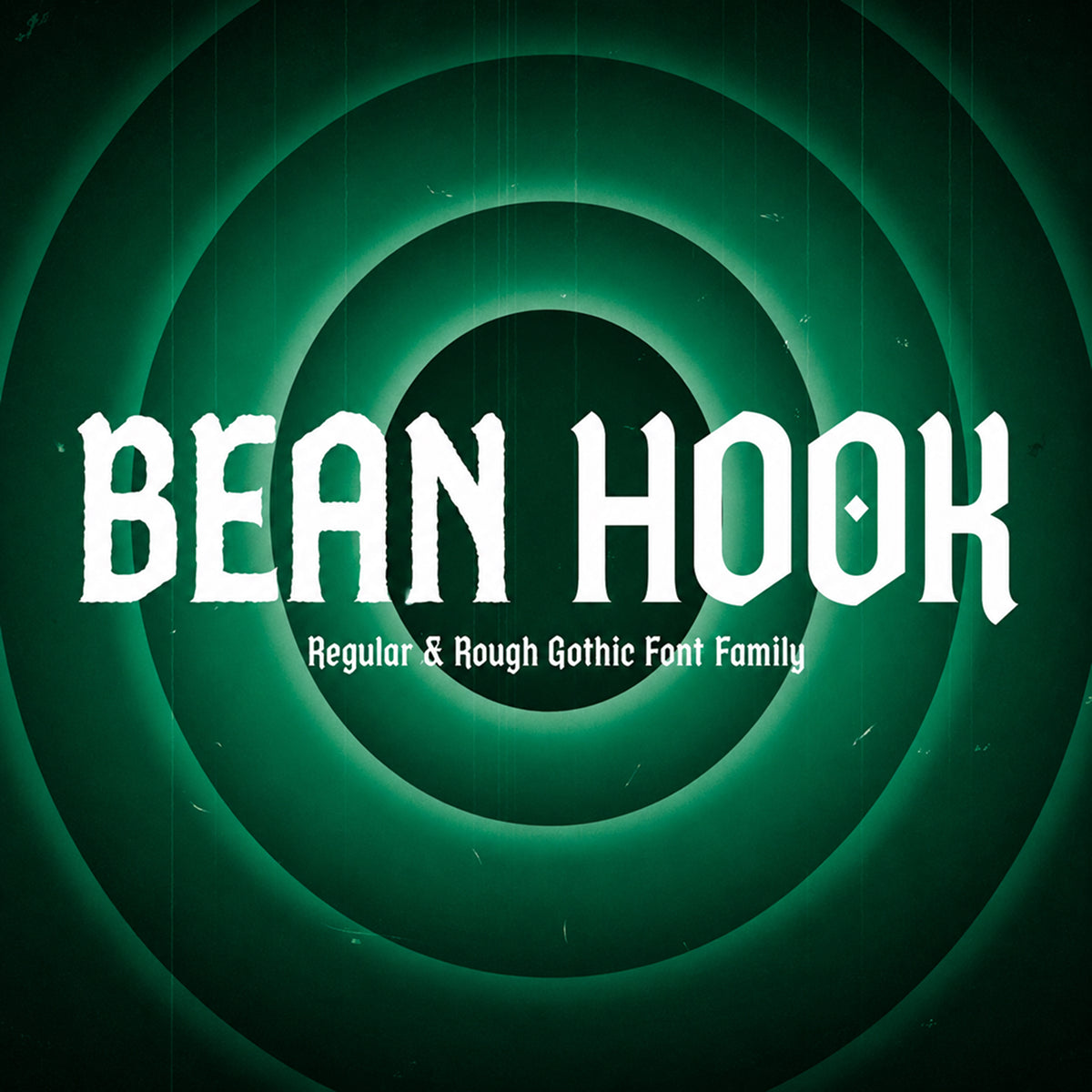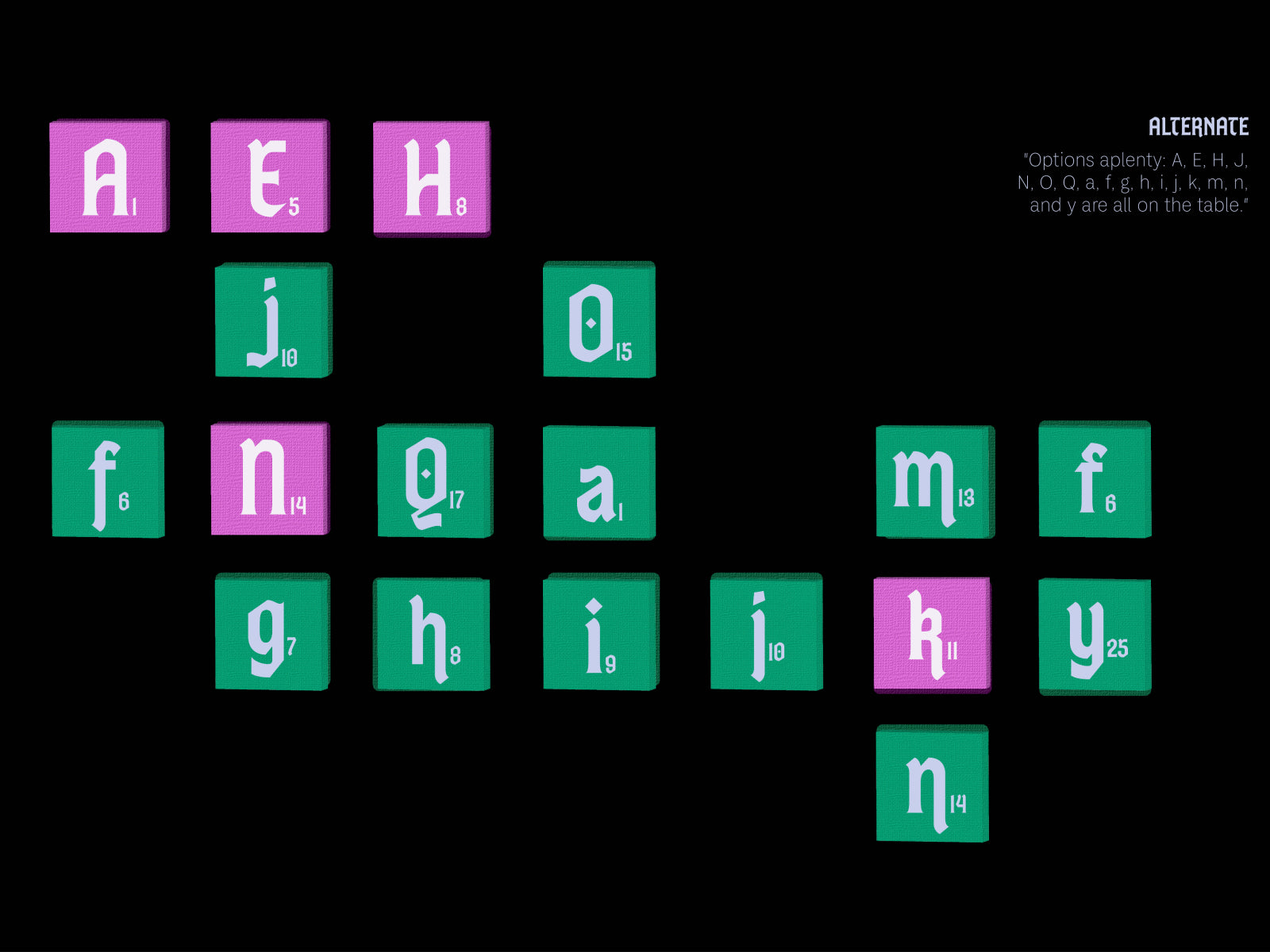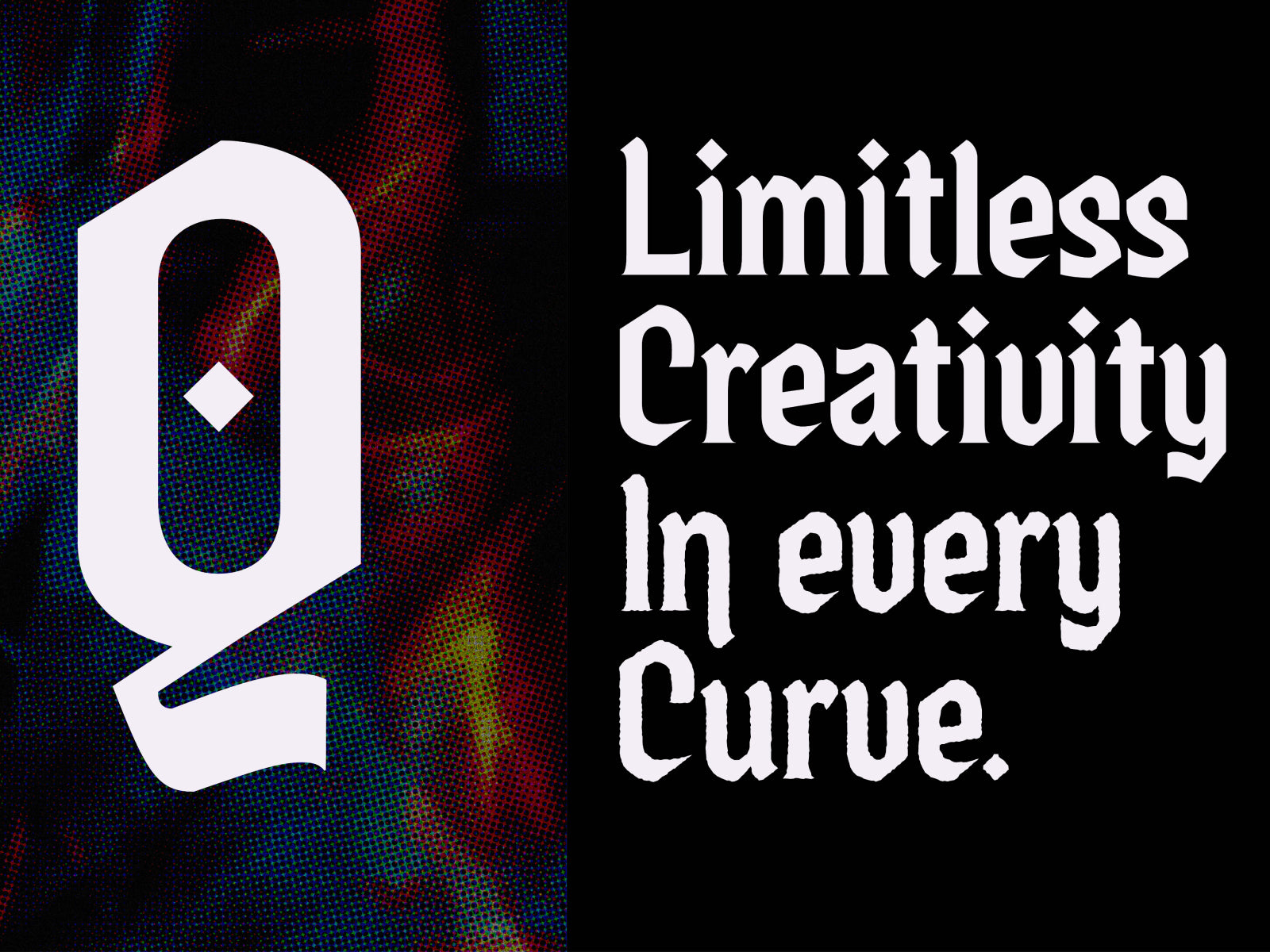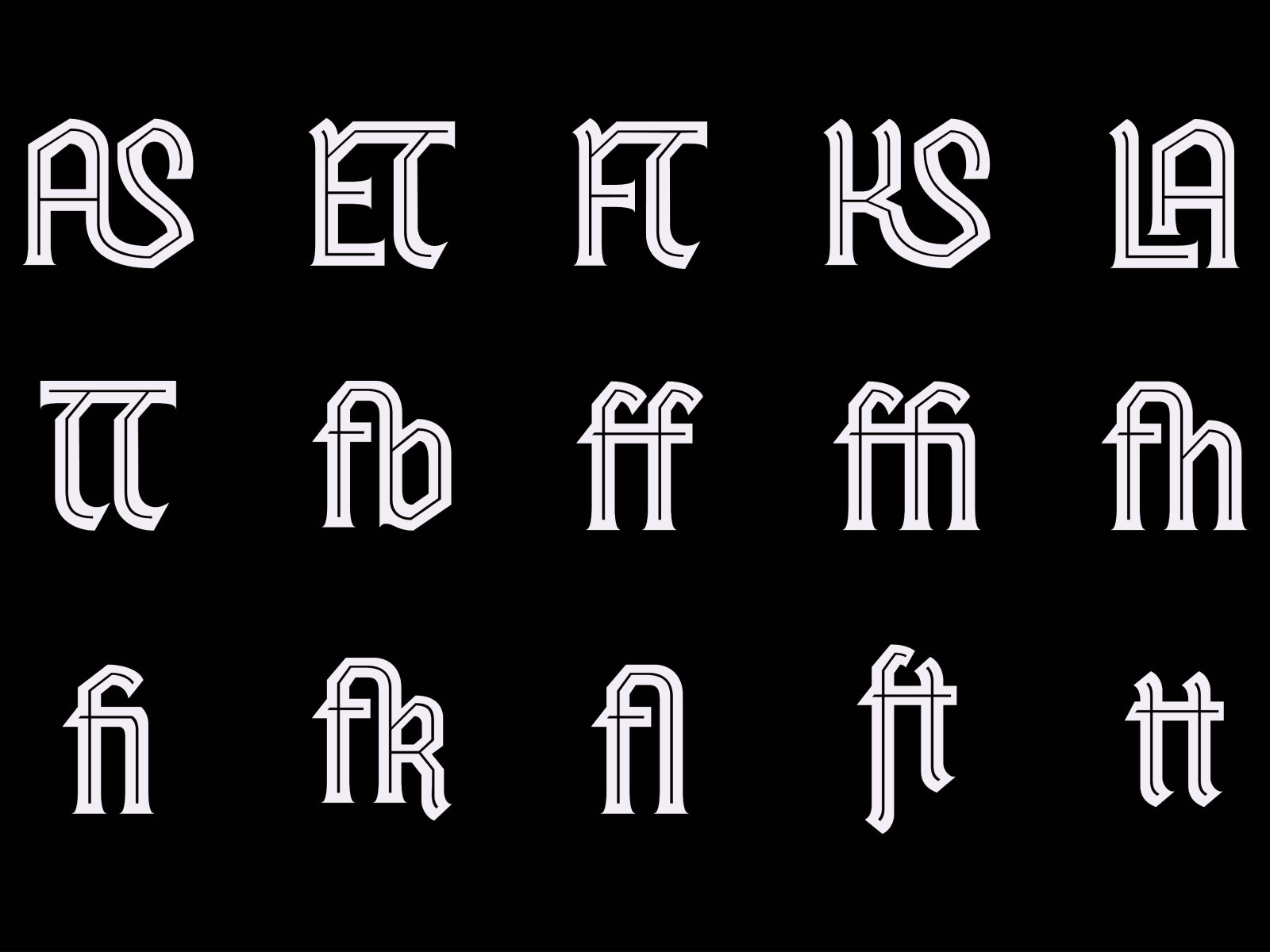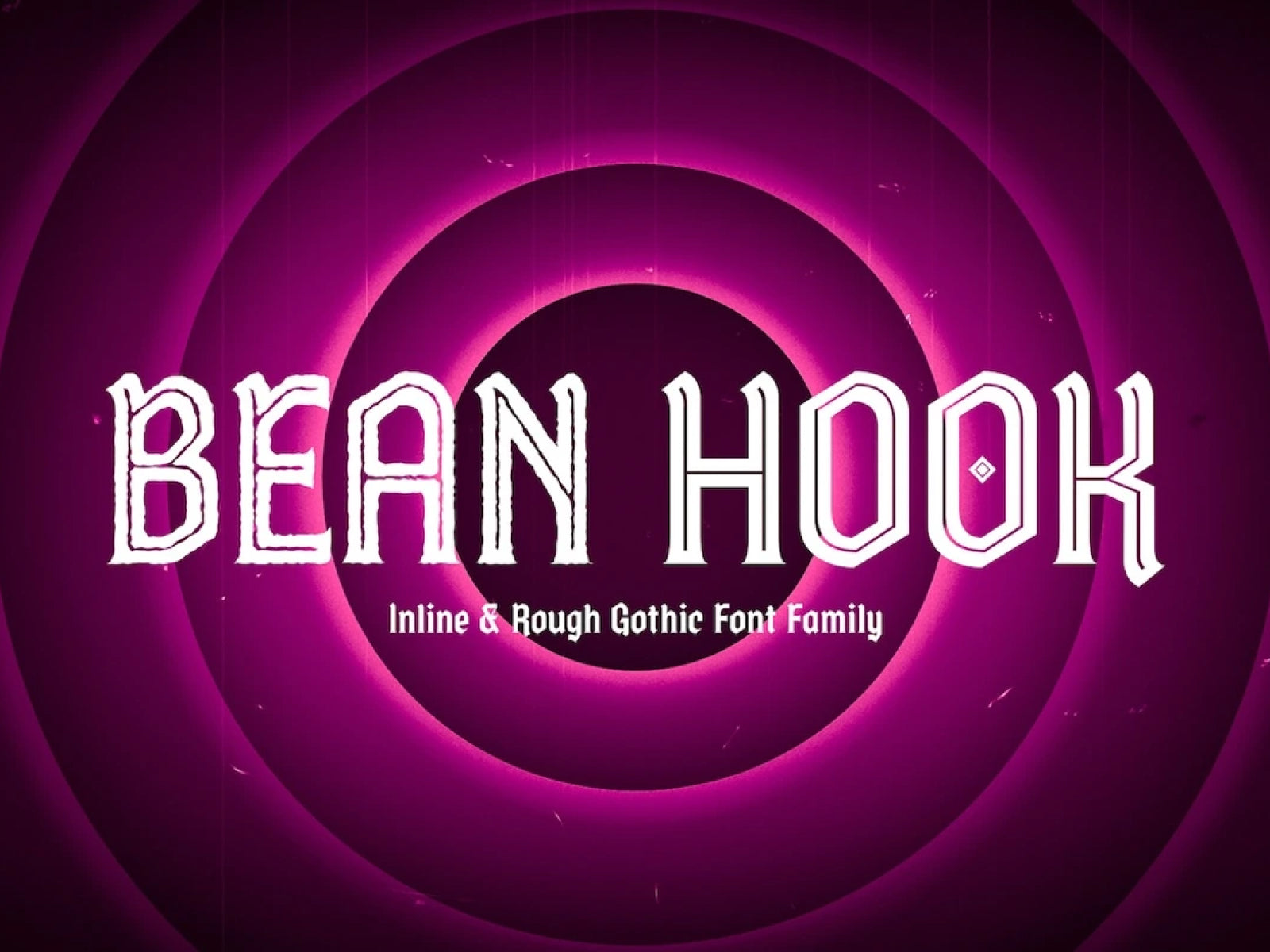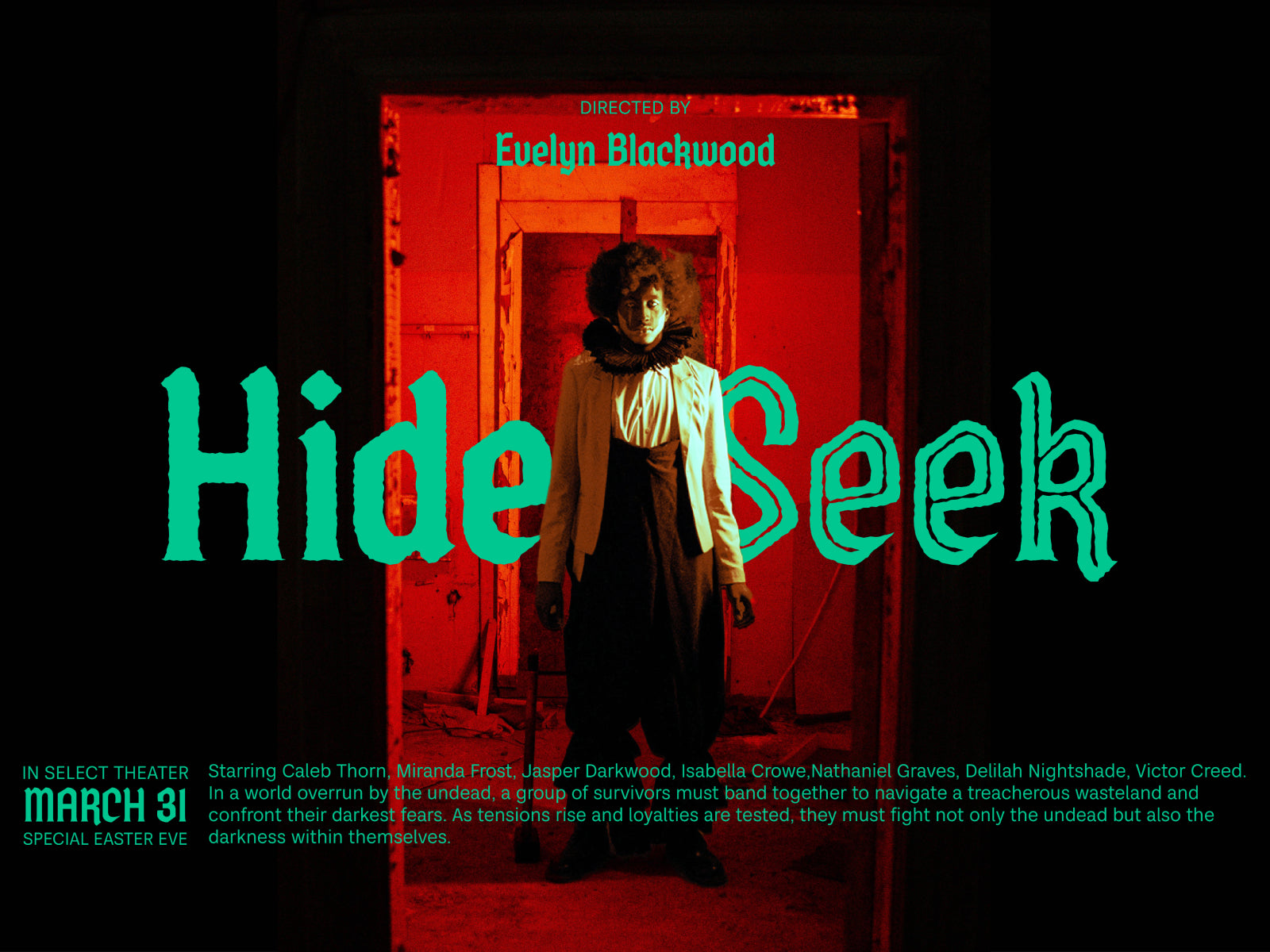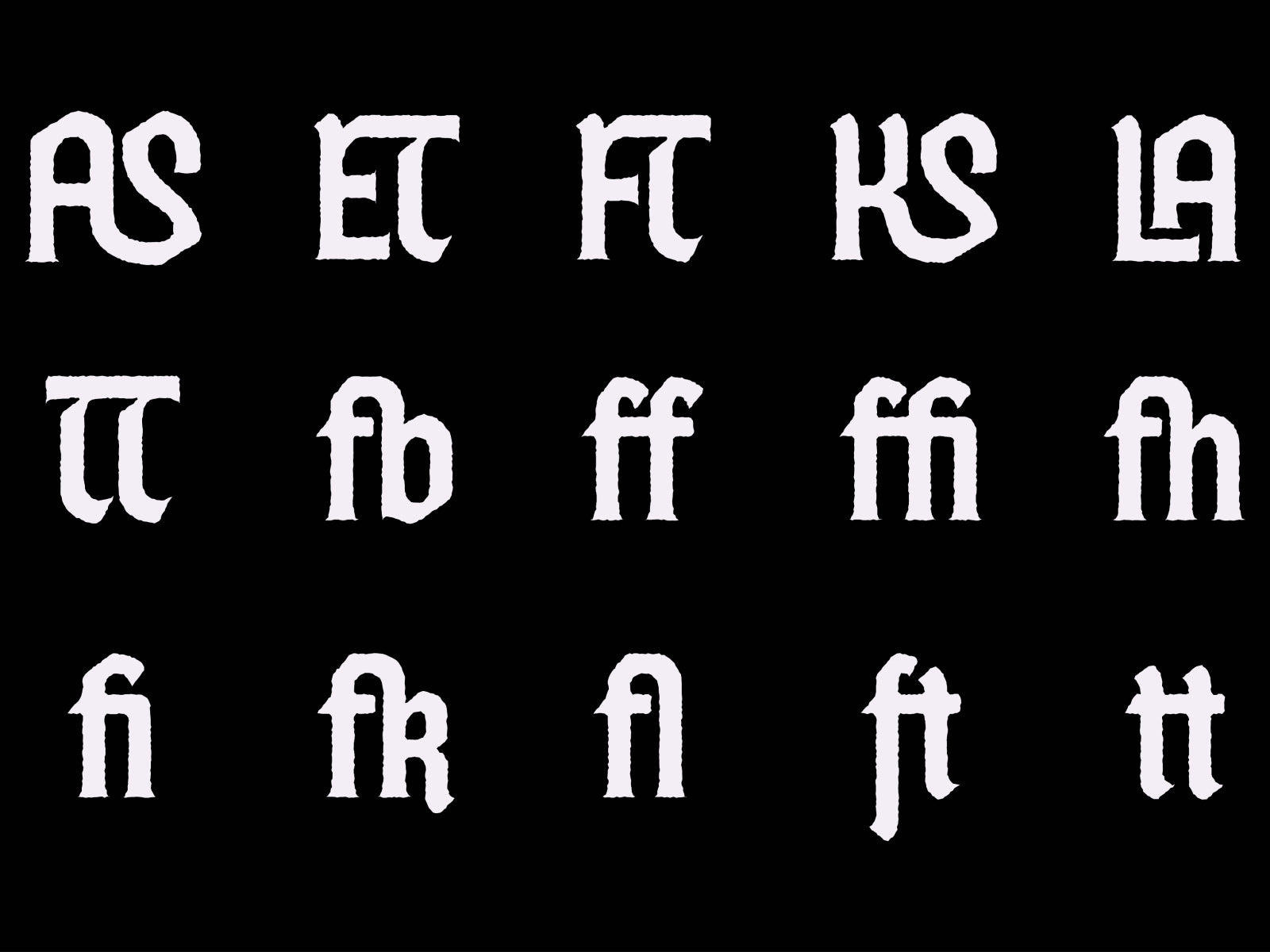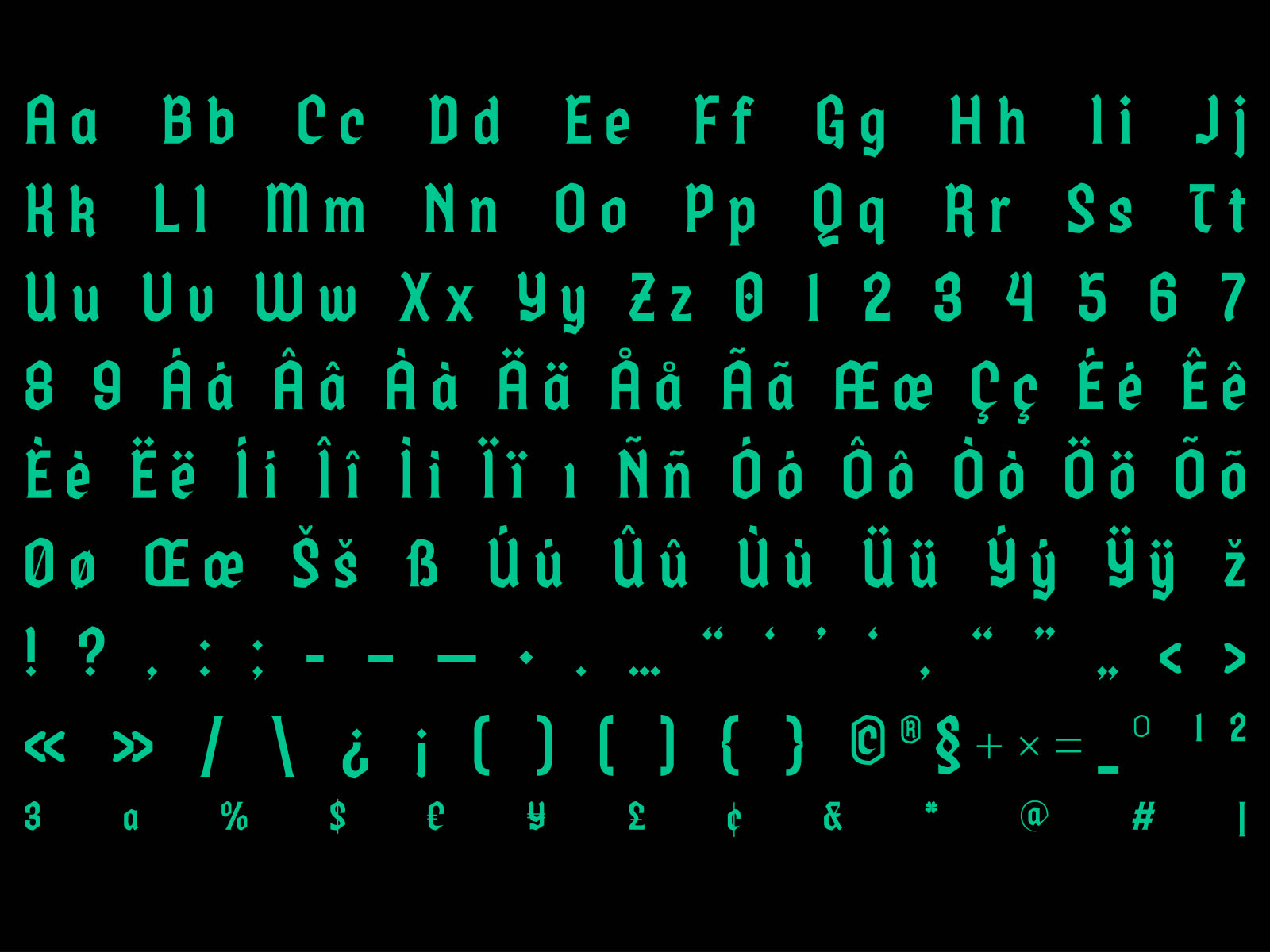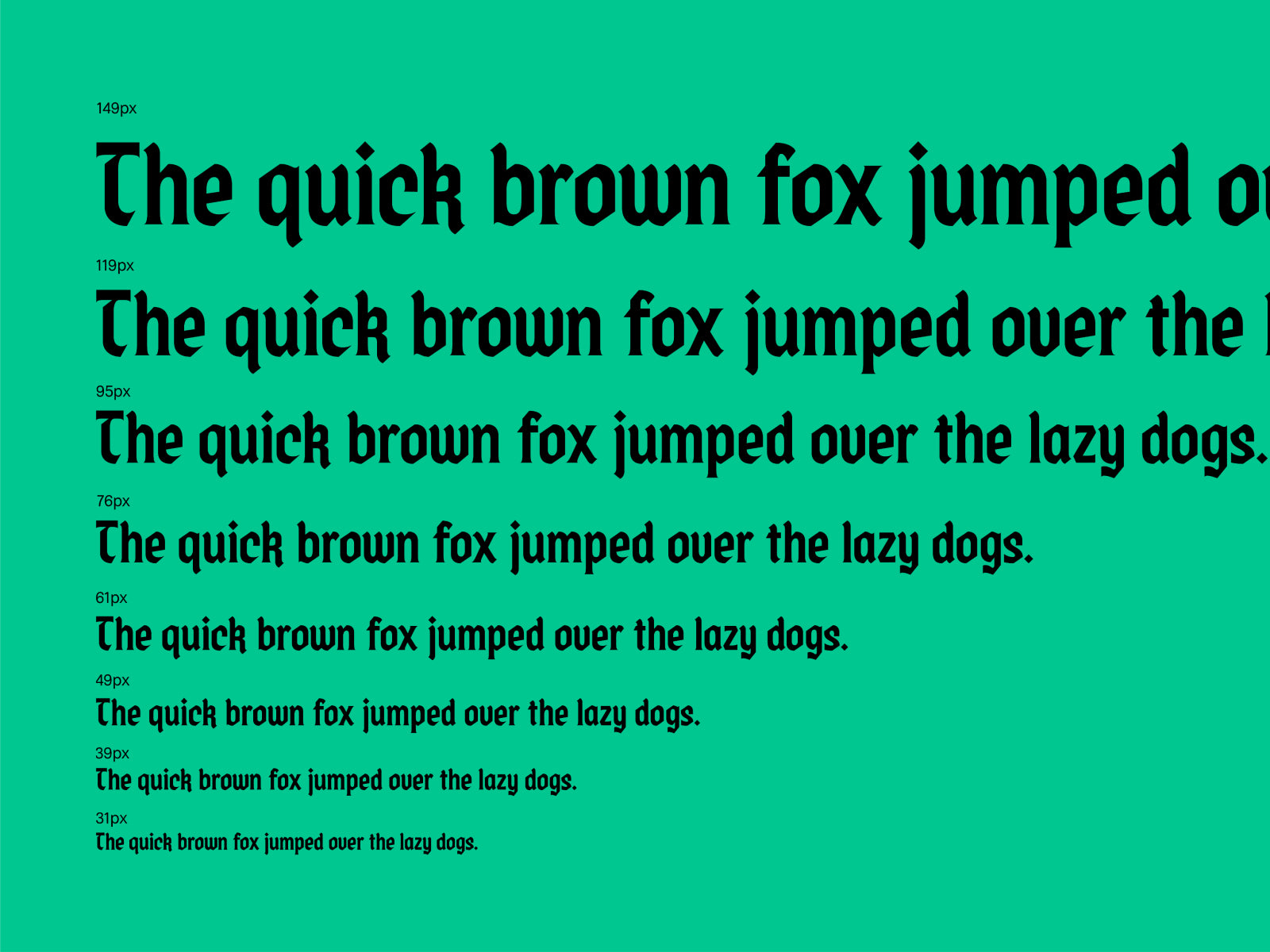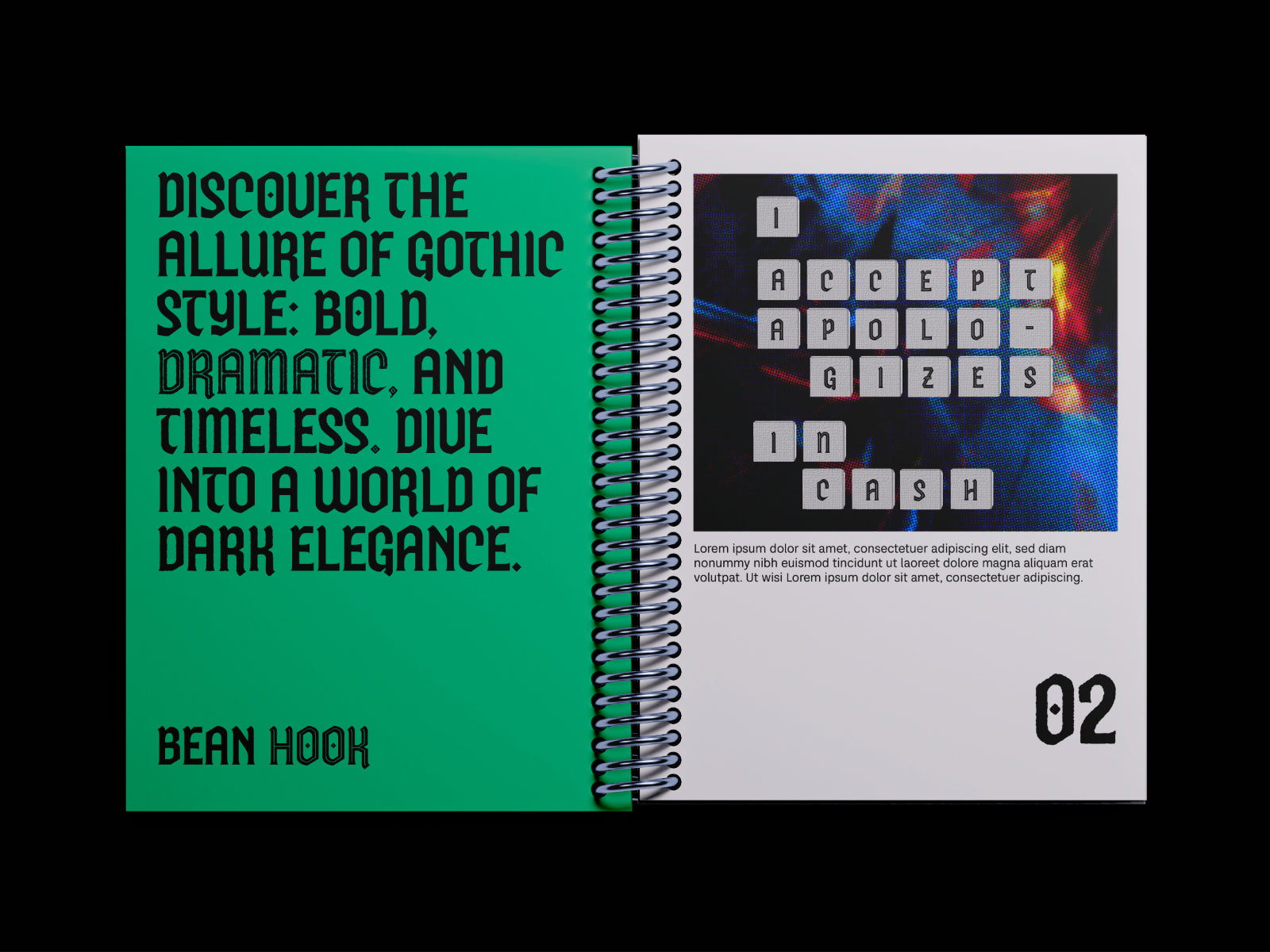
Bean Hook Gothic Flare Fonts
Introducing Bean Hook
a Gothic Flare font that seamlessly blends the almost mystical essence of black letter with the dynamic charm of flare serif. This unique display font stands out with its characteristic angularity, offering a contemporary twist to traditional Gothic styles.
Characteristic of Bean Hook is its versatile application across various design projects, from websites and packaging to logos and branding. Elevate your music endeavors with captivating album covers and distinctive logotypes. Embrace the font's ethnic and experimental Gothic mood for fashion, posters, and 3D projects.
Bean Hook boasts superior features, making it an excellent choice for your creative ventures. Its woodtype and antique-inspired design add an authentic touch to your Easter-themed projects, featuring elements like bunnies, chicks, crosses, and festive symbols. Whether you're working on a church event or an Easter celebration, Bean Hook's diverse variants - regular, rough, inline, and rough inline - offer endless possibilities.
Bean Hook Gothic Flare Fonts is a unique display font that combines black letter aesthetics with flare serif characteristics, featuring angular designs and a variety of styles including regular, rough, inline, and rough inline. This font is suitable for diverse design projects, offering an antique-inspired look with woodtype elements and a Gothic mood.